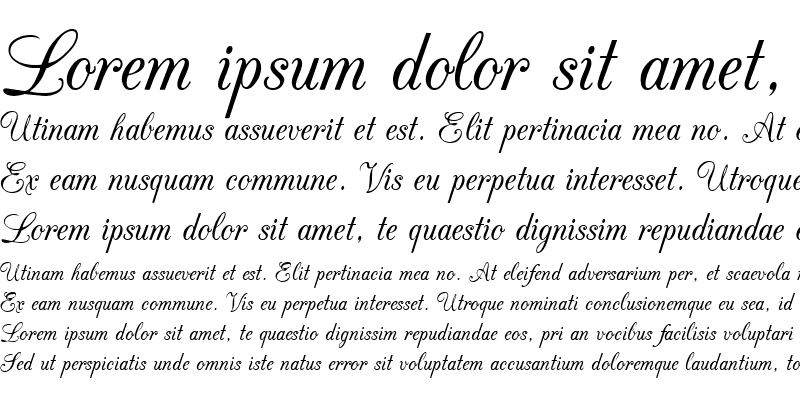
CAC Champagne Font
Fonts Cac Champagne In Script Category.
About the font cac champagne. The font has looked very stylish like nashville font and gorgeous. The fontsov.com it's contains thousands of exclusive and free script fonts not listed on any other font website.